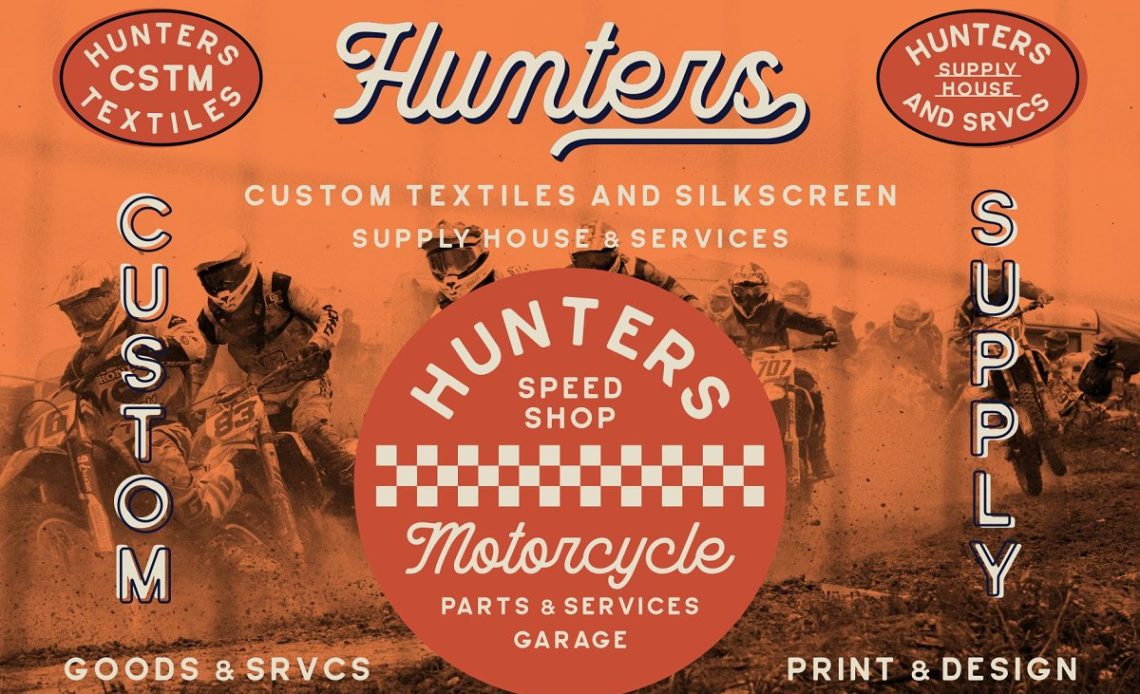
Welcome to the world of Portland Font Duo! This beautiful font family is perfect for all your creative needs, from logotypes to badges, clothing to posters, and so much more. Whether you're designing for a modern brand or a vintage project, this script monoline and sans-serif combo is sure to elevate your work to the next level.
Inspired by classic western culture, Portland Font Duo is a handmade vintage script with a touch of nostalgia. It's perfect for those looking for a font that exudes creativity and uniqueness. Plus, its multilingual support and numerous alternative styles allow you to truly personalize your design.
With its uppercase and lowercase characters (uppercase for the sans-serif font), numerals, punctuation, symbols, and stylistic alternates, Portland Font Duo is a versatile and eye-catching choice. The Opentype and Truetype features make it easy to use, even for beginners.
But what really sets Portland Font Duo apart is its association with the iconic stop sign. That's right, this font is perfect for creating designs for any stop sign, giving your project a touch of authority and professionalism. It's the perfect font for any situation where you want to grab attention and communicate a clear message.